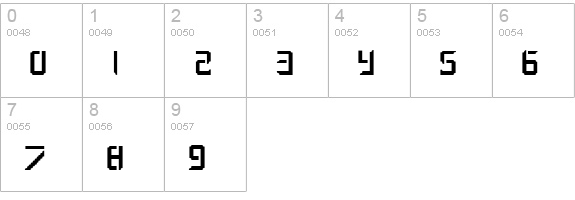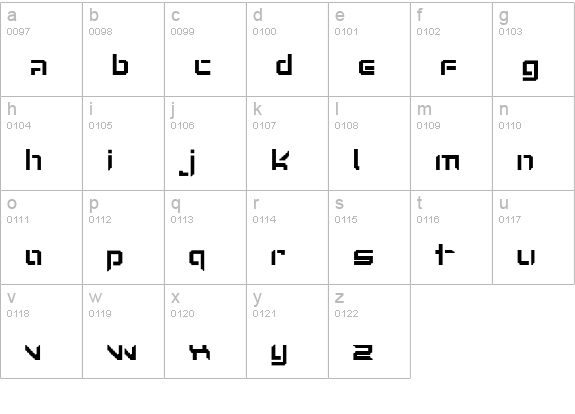
Lost Passenger Font Details
Lost Passenger font is a stylish and versatile typeface that exudes a sense of mystery and adventure. Its sleek and modern design gives a contemporary edge to any project, while its unique letterforms add a touch of whimsy and character. Whether you're working on a branding project, poster design, or website, Lost Passenger font will captivate your audience with its distinctive charm. Its bold yet elegant appearance makes it perfect for headlines and titles, while its readability ensures that your message is conveyed clearly. Best of all, Lost Passenger font is available for free download at FontsMarket.com. So whether you're a designer on a budget or simply looking to add a touch of flair to your work, this font is a must-have in your collection. Download it today and let your creativity take flight with Lost Passenger font.